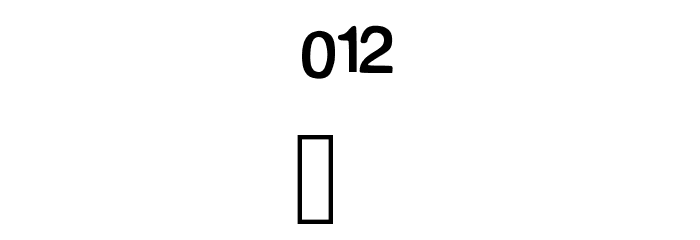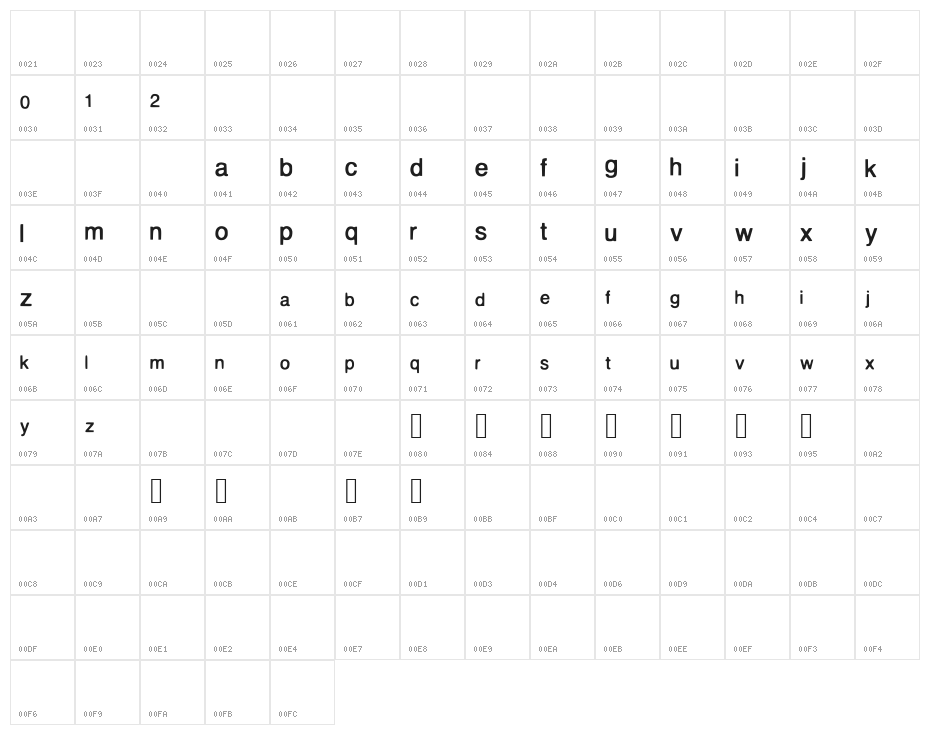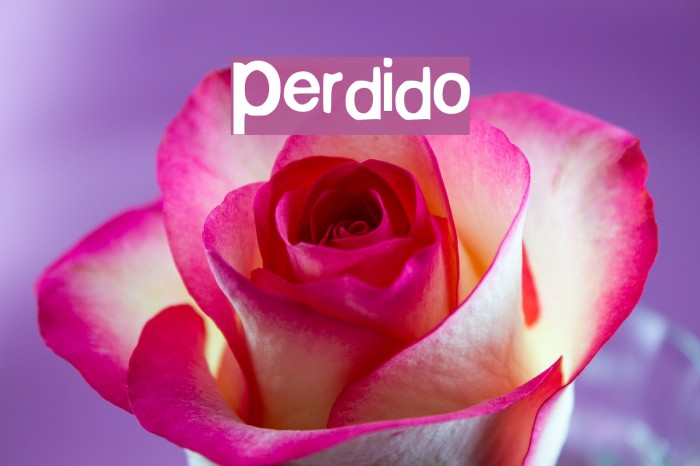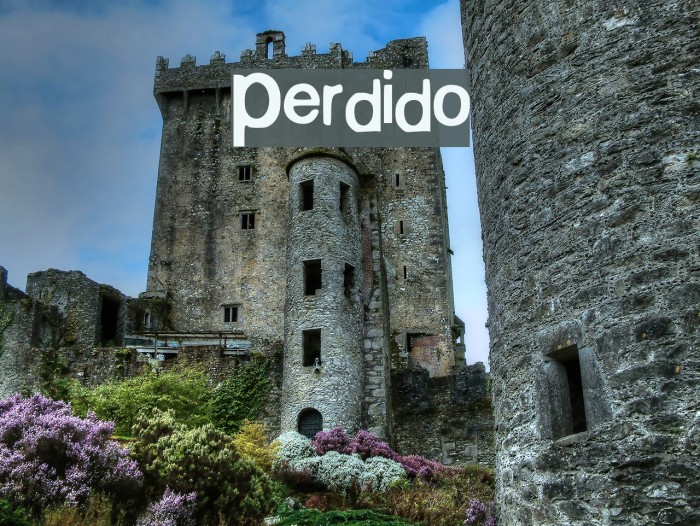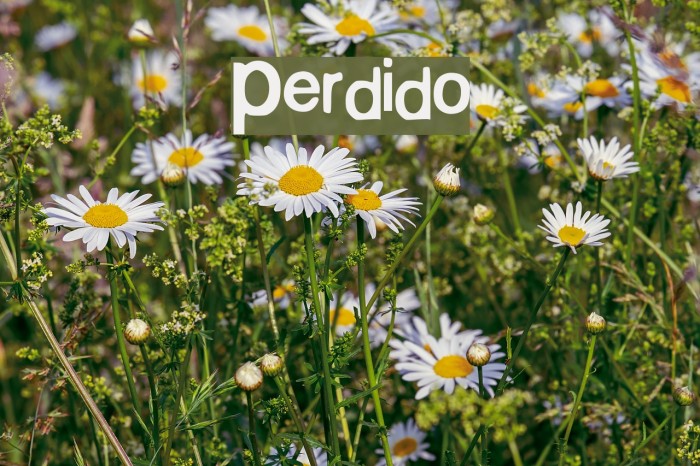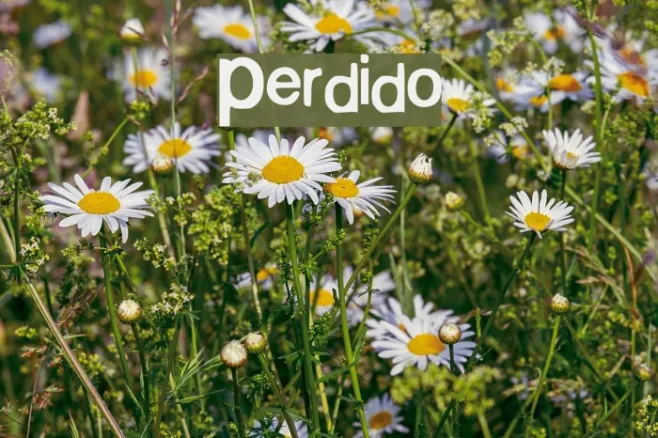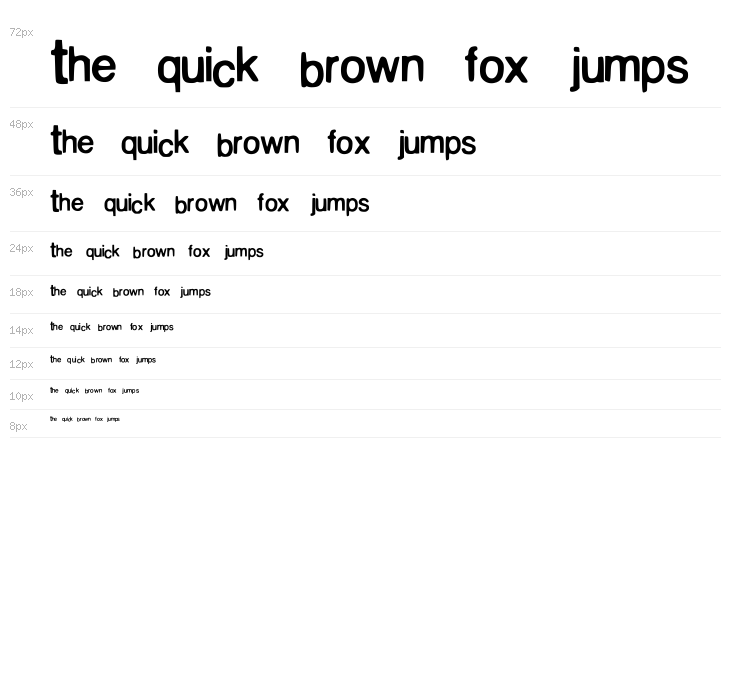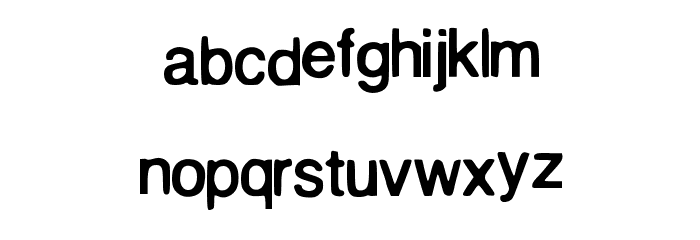
Perdido Font
Perdido Description
This font features a bold and modern sans-serif style with clean, geometric lines. The characters are uniform in width, providing a balanced and structured appearance. The uppercase and lowercase letters maintain a consistent height, contributing to a cohesive look. The numerals are straightforward and align well with the overall design. The special characters are distinct and easily recognizable, fitting seamlessly with the rest of the font. This typeface is versatile, offering a contemporary feel suitable for various design applications.
| Use Case | Headlines, Logos, Digital Media |
| Proposed Projects | Ideal for branding, advertising, and digital media projects where a modern and clean aesthetic is desired. |